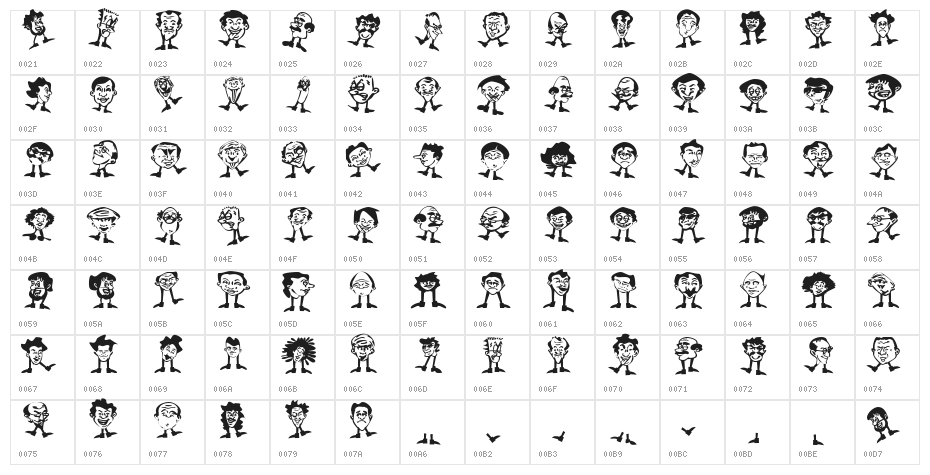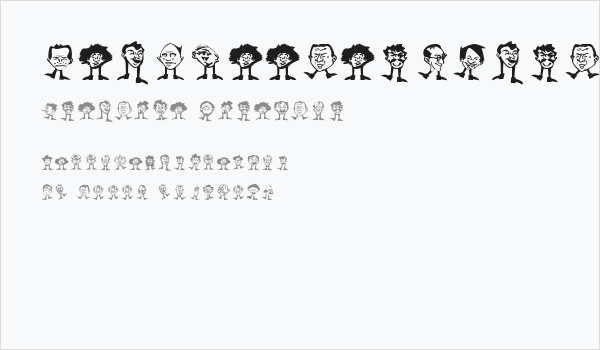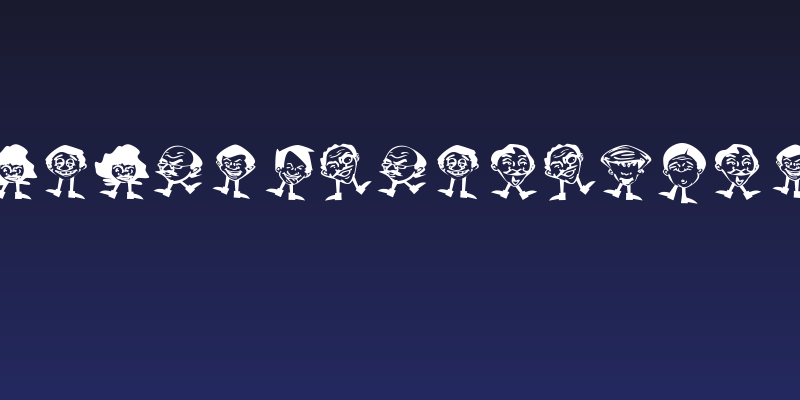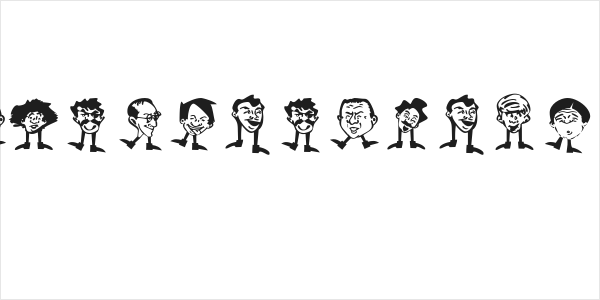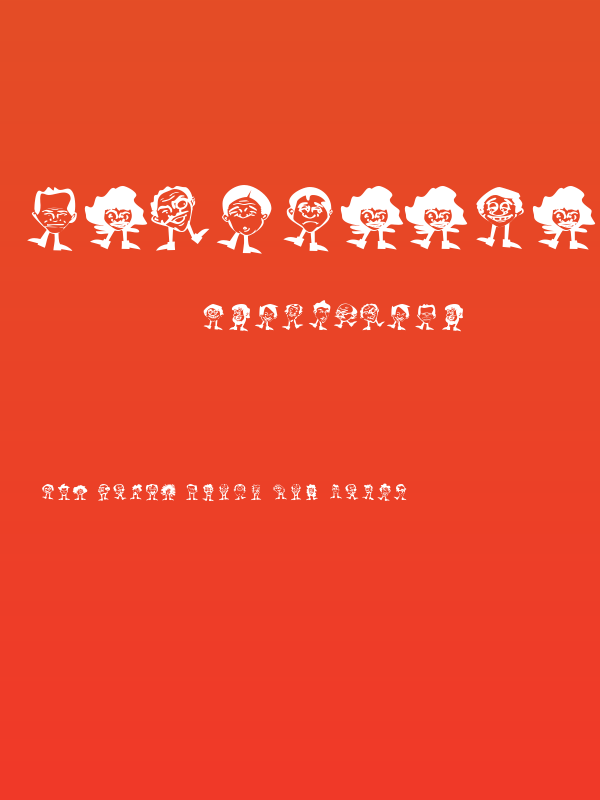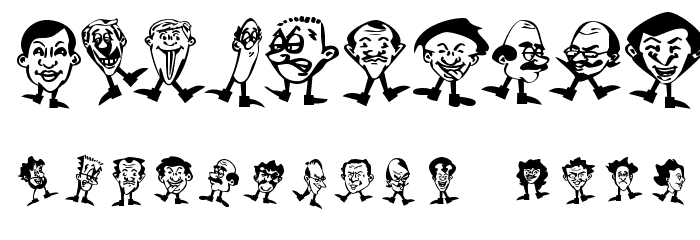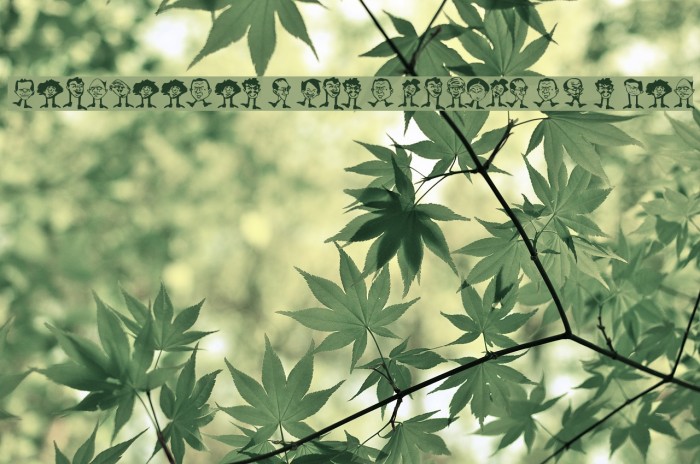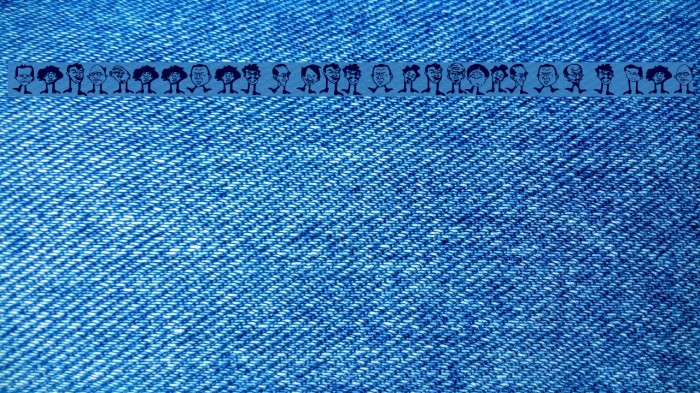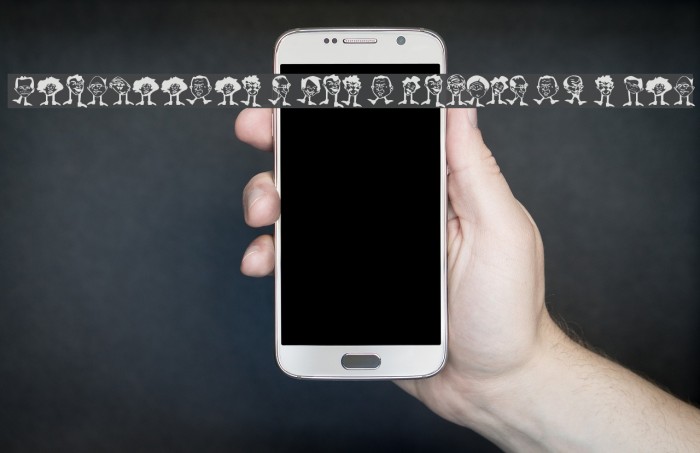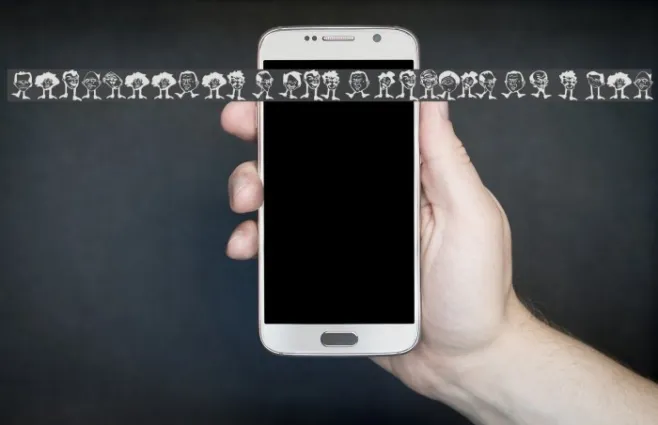
HeadfeetersPartialDisturbed Font
HeadfeetersPartialDisturbed Description
| Overall Style | Decorative, Whimsical, Playful |
| Use Case | Headlines, Logos, Posters, Themed events |
| Proposed Projects | Children’s books, comic titles, playful posters, party invitations, novelty branding, and educational materials. |